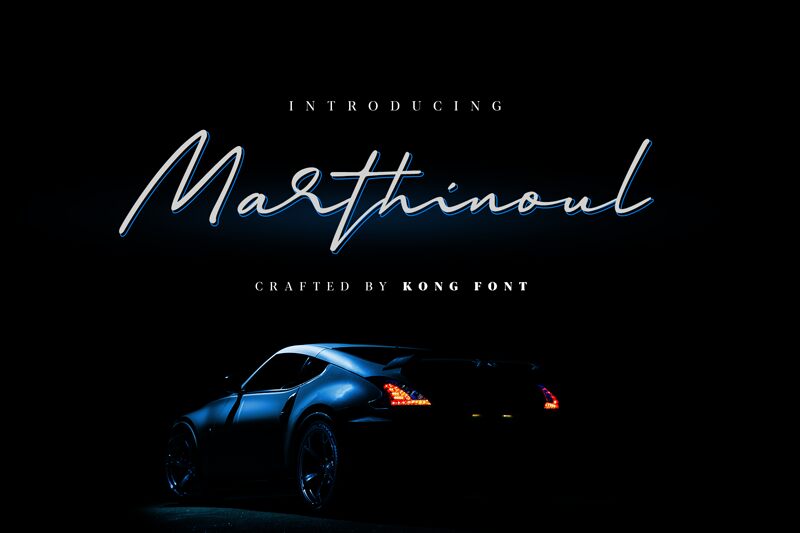
Marthinoul font family by Kong Font is a sleek handwritten typeface with 4 font styles available. This free font family is plain and simple, yet modern and elegant, allowing you to give any design project a dynamic and sophisticated feel.
Going for a professional look in your branding and identity to go along with your contemporary appeal is no longer a hurdle. Use the fonts for logos, packaging, websites, brochures, book covers, apps, social media posts, and much more. Show energy through your wall quotes, or go for a more casual sophistication with your greeting cards and invitations.